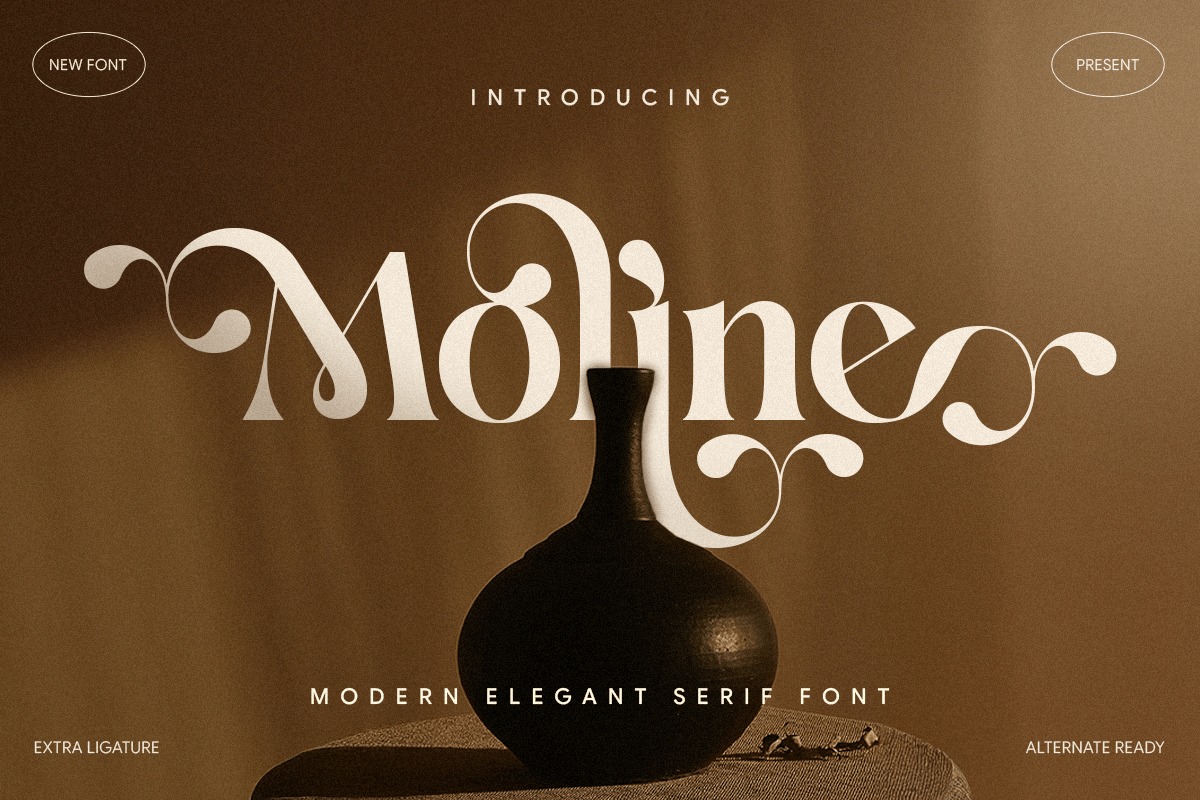
Moline – Elegant Serif Font
Moline – Elegant Serif Font brings a balanced structure and contemporary look, making it suitable for both digital and print design. Moline – Feminine Elegant Serif Font Moline is a feminine elegant serif font designed to express grace, beauty, and timeless sophistication. Featuring delicate serif details, smooth curves, and refined letterforms, Moline is perfect for beauty branding, fashion labels, wedding invitations, editorials, packaging, and luxury design projects.
Blending classic serif elegance with a modern feminine touch, Moline delivers excellent readability while maintaining a soft and stylish character. Its graceful appearance makes it ideal for boutique brands, cosmetics, jewelry, lifestyle products, and designers seeking an elegant serif font for refined visual identity.